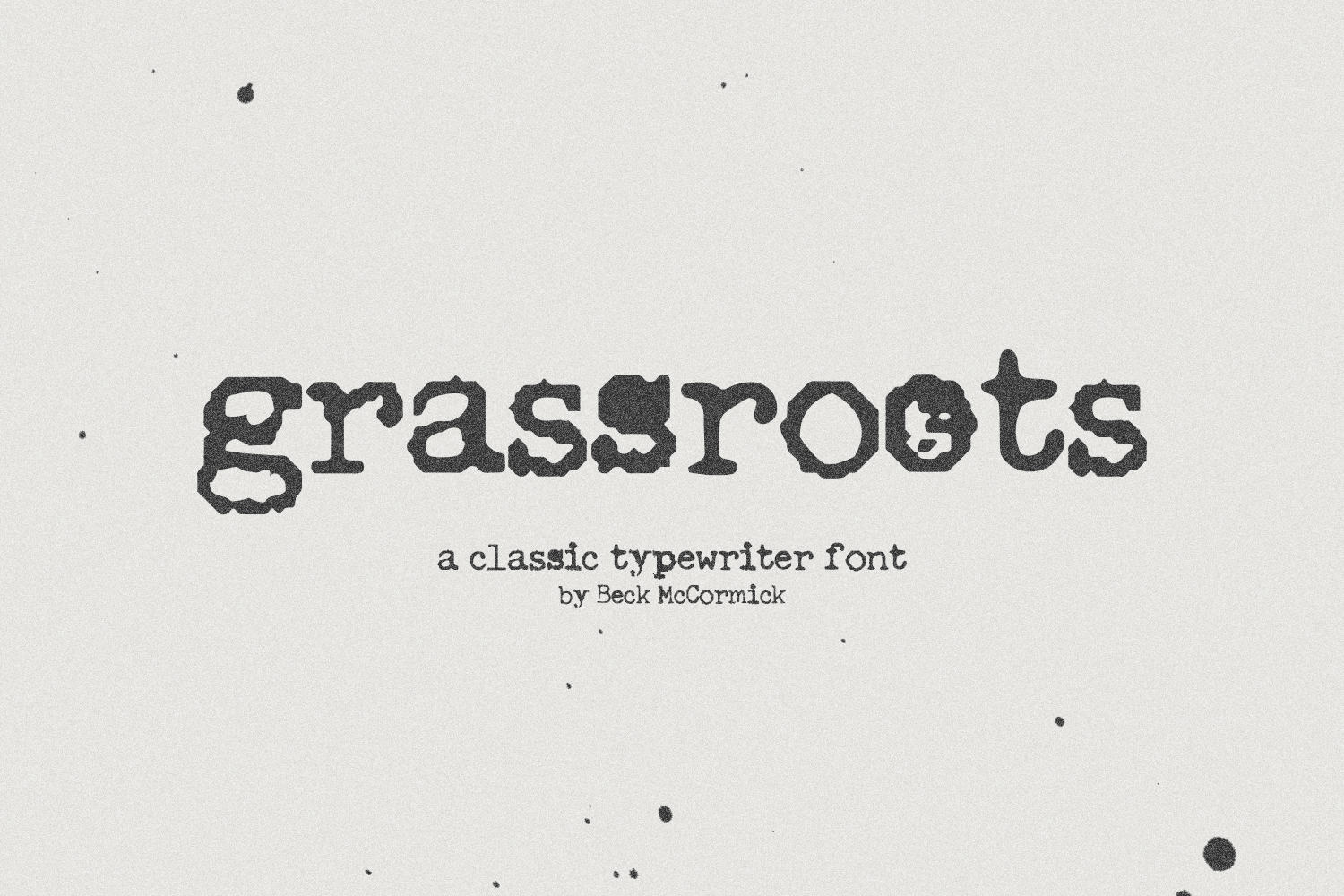
Grassroots Typewriter Font
Introducing Grassroots, a classic typewriter serif. This font was inspired by a 1950โs Royal Quiet De Luxe Typewriter, and features textured letters & symbols, creating a realistic look & feel without needing to source your own antique machine! (Or spend an arm & a leg in the process!)
Each keystroke on an old typewriter shows variations based on the ink ribbon & how hard or soft the typebars strike the ribbon & paper. This font was designed to provide multiple options for each letter so that you can further customize the look & feel of your text. Choose from lightly textured letters, all the way to grimy, inky letter variations! This font also includes double letter ligatures for all capital & lowercase letters to provide a more realistic experience when hitting the same letter key twice in rapid succession.
Grassroots mixes antique, vintage charm with modern, robust OpenType features. The result is an incredibly versatile font with options galore, which can be used for a variety of projects ranging from replicating a classic, old school look & feel, all the way to a modern, trendy, hip aesthetic.
- full uppercase and lowercase characters
- numbers + punctuation
- five alternate upper & lowercase character sets (totaling 260 alternate characters)
- three alternate number sets (totaling 30 alternate characters)
- 52 double letter ligatures
- 1 alternate at symbol, 2 alternate ampersands